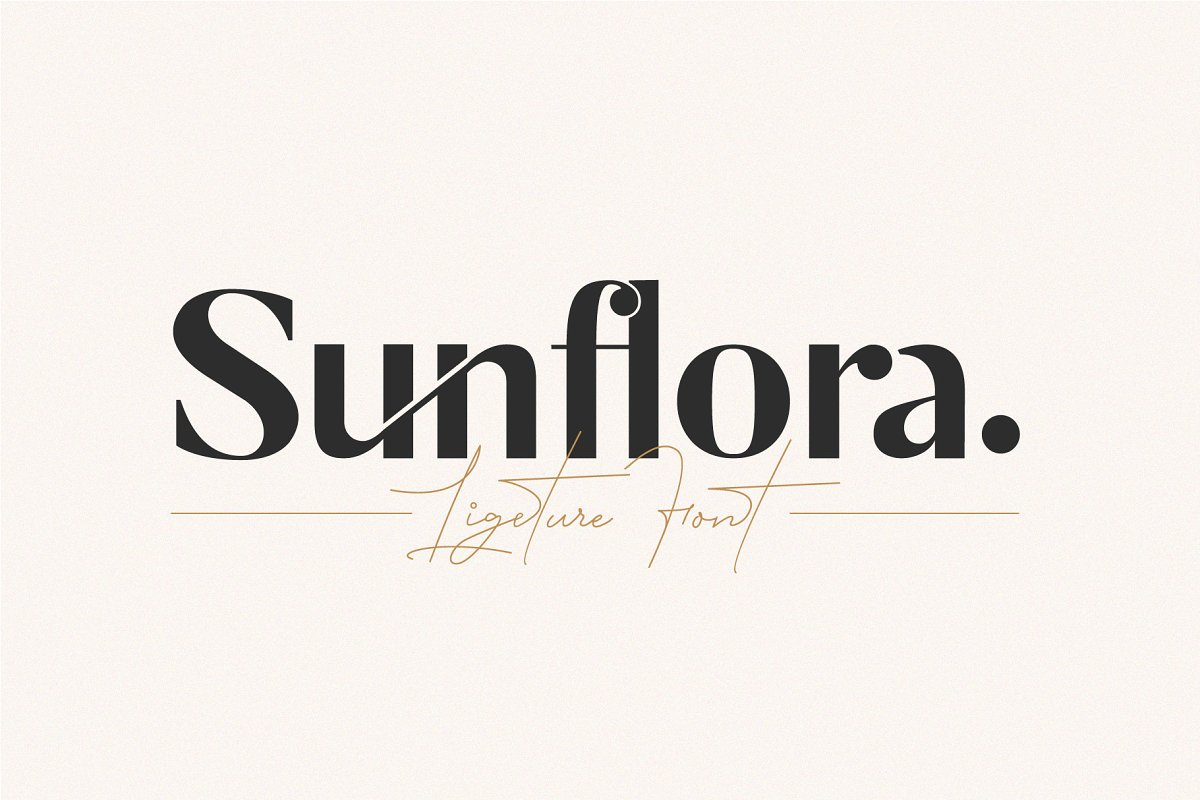
Sunflora Font
Sunflora Font is perfect for cheerful garden center branding, sunny children's products, bright summer festival materials, optimistic wellness campaigns, vibrant flower shop signage, and joyful outdoor event promotions. Its radiant character makes it ideal for organic produce markets, sunny vacation resorts, solar energy companies, yellow-themed cafes, happiness coaching services, and any project requiring luminous warmth with botanical beauty and uplifting sunshine energy.
This font is exciting because it captures the pure essence of sunflower fields and golden sunshine while delivering exceptional functionality and infectious positivity that brightens every communication. The carefully crafted letterforms evoke images of swaying sunflowers following the sun's path, creating instant emotional connections that radiate warmth, optimism, and natural joy that resonates with audiences seeking happiness and positive life experiences.
The Sunflora Font family typically includes Regular, Bold, and Light variations with botanical swashes, sun-inspired ornaments, and floral decorative elements that enhance its sunny personality. This comprehensive collection provides designers with vibrant tools for creating cohesive brand systems that maintain cheerful authenticity while offering creative flexibility for various nature-inspired applications and positive lifestyle branding initiatives.
Whether you're developing identity systems for agricultural businesses, creating packaging for natural health products, or designing materials for outdoor summer events, Sunflora Font Free Download delivers the radiant warmth and botanical charm that connects with audiences seeking natural beauty and positive energy. Its bright presence ensures memorable brand recognition across digital platforms and print materials, making it perfect for websites, mobile applications, and promotional campaigns that celebrate sunshine, growth, and the eternal optimism found in nature's golden moments.